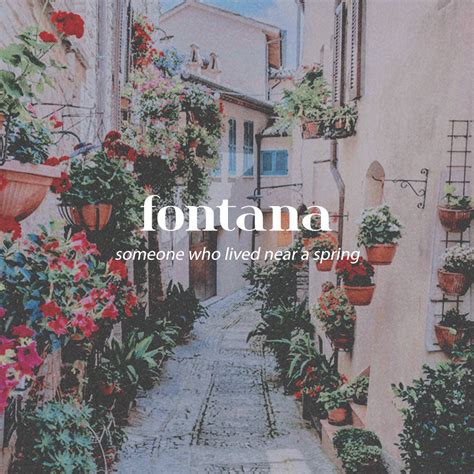
Fontana: Exploring The Unique Ilmzh Font
Let’s dive into the world of Fontana , a truly unique Ilmzh Font that’s been making waves in the design community. In this article, we’re going to explore what makes Fontana stand out, how you can use it, and why it might just be the perfect typeface for your next project. We’ll cover everything from its history and characteristics to practical tips and inspiring examples. So, buckle up, guys, and let’s get started!
What is Ilmzh Fontana?
When we talk about Ilmzh Fontana , we’re referring to a specific typeface designed with a unique flair. Fonts like this aren’t just about letters; they’re about conveying a mood, a message, and an identity. Fontana, in particular, often features distinctive characteristics that set it apart from more generic fonts. Think about the subtle curves, the weight of the strokes, and the overall aesthetic feel. These elements combine to create a font that can be both eye-catching and highly functional.
Consider the impact a font can have on a brand. A playful, rounded font might be perfect for a children’s brand, while a sharp, angular font could lend authority to a corporate identity. Fontana likely has its own specific niche, perhaps excelling in areas like editorial design, branding, or even web design. It’s all about finding the right fit for your project.
Moreover, the technical aspects of Fontana are crucial. Is it available in multiple weights (light, regular, bold)? Does it include italics? How extensive is its character set (does it support different languages)? These are all important questions to consider when evaluating whether Fontana is the right choice for your needs. Exploring these details will help you understand the versatility and limitations of this unique typeface. So, next time you’re looking for a font that makes a statement, remember Ilmzh Fontana – it might just be the missing piece of your design puzzle!
Key Characteristics of Fontana
Understanding the key characteristics of the Fontana Ilmzh Font is essential to appreciating its design and knowing when to use it effectively. This font likely possesses unique attributes that make it stand out from the crowd. Perhaps it’s the specific shape of the serifs, the unusual proportions of the letters, or the overall rhythm and flow of the text. These elements contribute to the font’s distinctive personality.
One important aspect to consider is the legibility of Fontana . While some fonts prioritize aesthetics above all else, a good font should be easy to read, especially in body text. Think about the x-height (the height of the lowercase letters), the spacing between letters, and the contrast between thick and thin strokes. These factors all play a role in how easily the eye can scan and process the text. If Fontana excels in legibility, it could be a great choice for longer articles or website content.
Another key characteristic is its versatility. Can Fontana be used in a variety of contexts, or is it better suited for specific applications? For example, a highly stylized font might be perfect for a logo or headline but impractical for body text. A more versatile font, on the other hand, could be used across a wider range of projects, from print to web to mobile. Consider the different weights and styles available within the Fontana family. Does it include bold, italic, and condensed versions? The more options you have, the more flexible the font will be.
Finally, think about the emotional impact of Fontana . Does it evoke a sense of elegance, playfulness, seriousness, or something else entirely? The emotional tone of a font can have a significant impact on how your message is received. Choose Fontana when its inherent characteristics align with the overall mood and message you’re trying to convey. By carefully considering these key characteristics, you can make informed decisions about when and how to use Fontana to its full potential.
How to Use Ilmzh Fontana in Your Designs
Now that you know a bit about Ilmzh Fontana , let’s talk about how to actually use it in your designs. Choosing the right font is only half the battle; you also need to know how to implement it effectively. First off, think about hierarchy. Fontana might be perfect for headlines, drawing the reader’s eye and setting the tone for the piece. But would it work as well for body text? Maybe, maybe not. Experiment with different sizes and weights to see what looks best.
Consider pairing Fontana with other fonts. A good rule of thumb is to choose a contrasting font for body text – something that’s clean and easy to read. You don’t want two fonts that are too similar, as that can create a visual conflict. Instead, look for fonts that complement Fontana without competing with it. For example, if Fontana is a serif font with a lot of personality, you might pair it with a simple sans-serif font for the body text.
Pay attention to spacing and kerning. Even the most beautiful font can look terrible if it’s not properly spaced. Adjust the kerning (the space between individual letters) to ensure that the text is easy to read and visually appealing. Also, consider the line height (the space between lines of text). Too little line height can make the text feel cramped, while too much can make it feel disjointed. Experiment with different line heights until you find one that feels just right.
Conclusion
In conclusion, Ilmzh Fontana is a distinctive and versatile font that can add a unique touch to your designs. Its key characteristics, including its unique letterforms and potential for various weights and styles, make it a valuable asset for designers looking to stand out. By understanding how to use it effectively and exploring examples of its use, you can harness the power of Fontana to create visually stunning and impactful projects. Whether you’re designing a website, creating a brand identity, or crafting editorial layouts, consider the unique flair that Fontana can bring. So go ahead, experiment with this font , and let your creativity flow! You might just discover that Fontana is the missing piece you’ve been searching for to elevate your designs to the next level. Happy designing, guys!